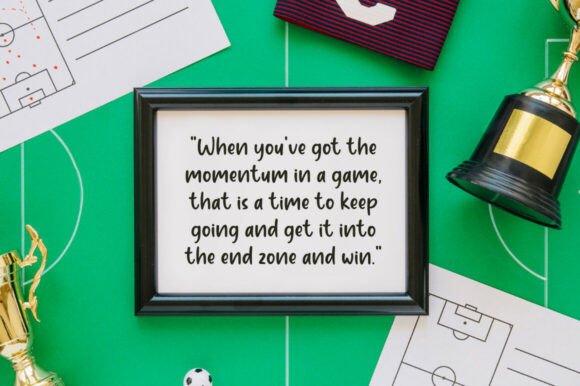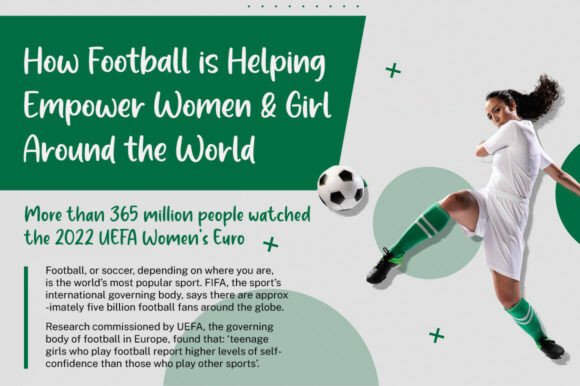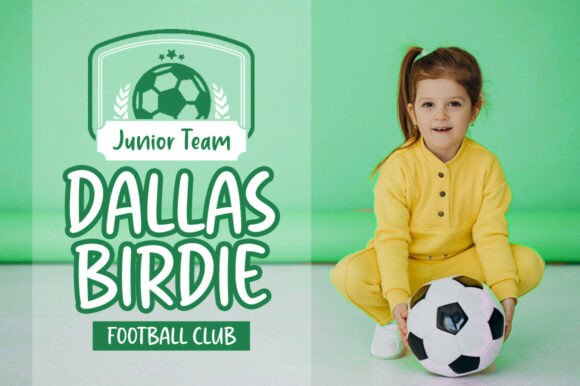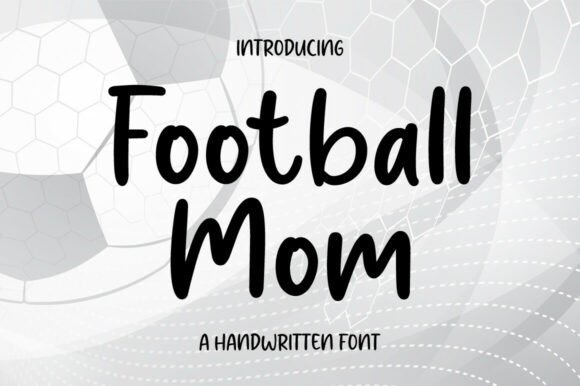
Introduction to Football Mom Font
Football Mom is a beautiful, well-balanced, and graceful script font.
👤 Author Graphix Line Studio
It is defined by smooth curves and is perfect for fashion branding or editorial designs .
Key Features of Football Mom Font
Why Choose Football Mom Font?
Football Mom Font offers exceptional quality and versatility, making it a valuable addition to your design toolkit. Whether you’re creating for personal projects or commercial use, Football Mom Font delivers professional results.